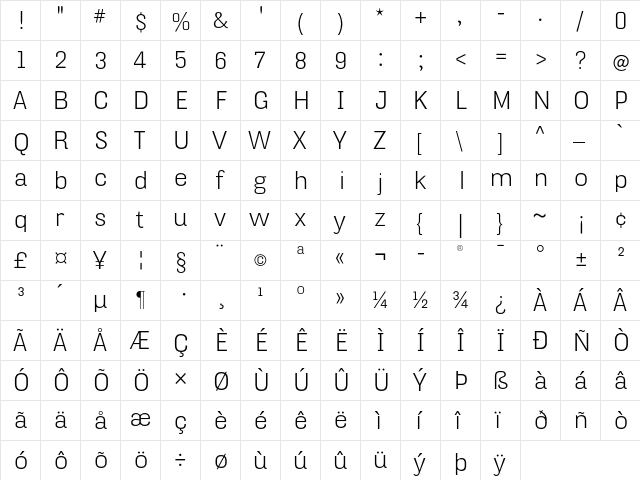
HydraText-Light Regular
HydraText-Light takes a measured approach to typography — its balanced proportions and neutral character make it a reliable workhorse for both digital and print work. Its slender proportions lend an understated elegance to any composition.
Pro Tip: Use HydraText-Light in both headline and body roles to test its range before committing to a single application.